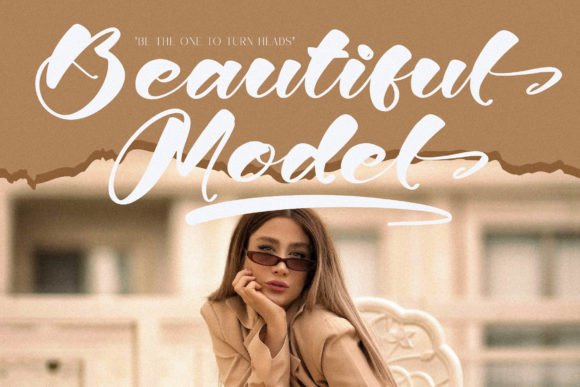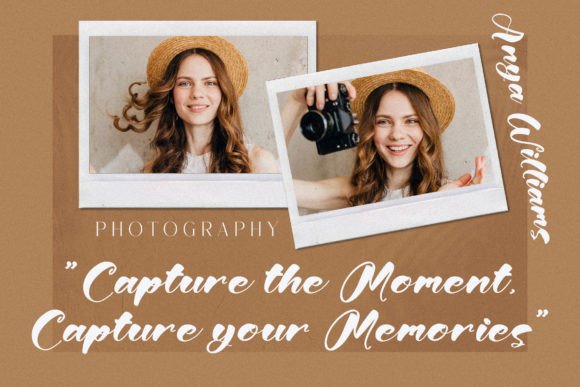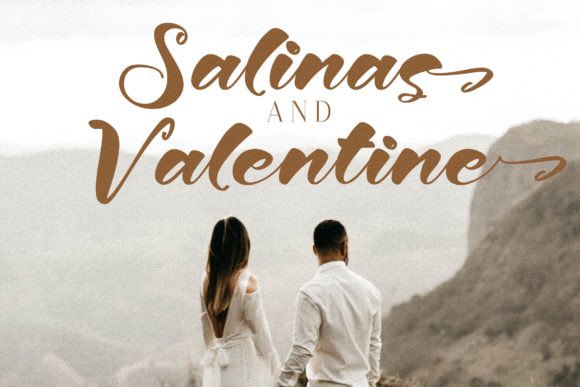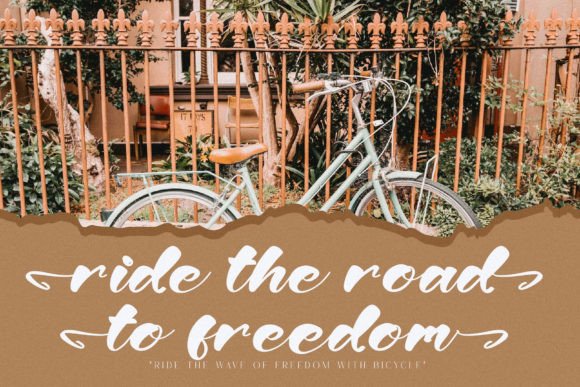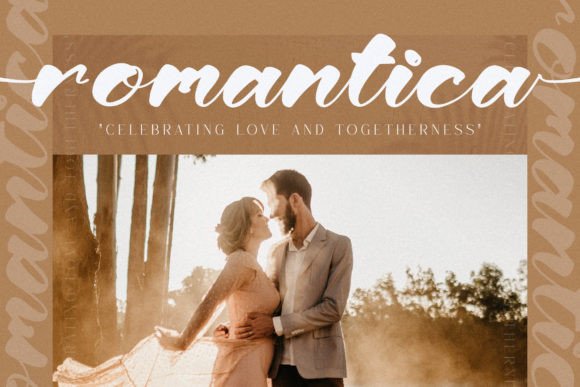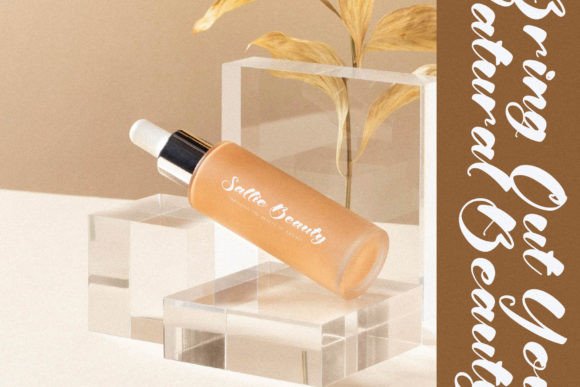
Discover the Perfect Blend of Elegance and Whimsy: Bright Nattelia Font
Have you ever stared at a blank page, waiting for inspiration to strike? That’s exactly what happened to me the day I stumbled upon the enchanting Bright Nattelia Font. Its elegant, handwritten script seemed to whisper ‘create something beautiful’ in my ear. And, boy, did it deliver! With its versatility and charm, this font has become my go-to companion for any project that requires a touch of sophistication and whimsy.
Whether you’re designing a logo, branding project, or a simple greeting card, Bright Nattelia Font is the perfect tool to elevate your creative vision. Its unique blend of elegance and playfulness makes it a valuable asset for designers who crave something truly special. With its endless possibilities, Bright Nattelia Font is sure to become your new favorite companion in the world of design.
Bright Nattelia Font Key Features
- Font Family: Bright Nattelia
- Font Size: 1,004 glyphs
- Unique Characteristics: This font features a unique blend of modern and elegant design elements, with a high level of legibility and readability, making it suitable for various design applications, including digital and print media.
Bright Nattelia Font Review
I recently had the chance to work with the Bright Nattelia font, and I must say, it’s a delightful addition to any design project. ✨ The font’s modern and elegant feel makes it perfect for creating a sophisticated and eye-catching visual identity. The clean lines and precise shapes give it a sleek, high-end look that’s sure to impress.
- ✨ Unique and modern design
- ✨ Perfect for creating a sophisticated visual identity
- ✨ Suitable for a wide range of applications, from branding to editorial design
However, as with any font, there are some limitations to consider. ⚠️ The Bright Nattelia font may not be the best choice for projects that require a lot of text, as it can become difficult to read at smaller font sizes. Additionally, the font’s modern design may not be suitable for more traditional or conservative audiences.
Overall, I think the Bright Nattelia font is a great addition to any designer’s toolkit. While it may have some limitations, its unique design and versatility make it a valuable resource for creating stunning visual identities. With the right use case, this font is sure to shine and leave a lasting impression.
Tips for Getting the Most Out of Bright Nattelia
Experiment with different font sizes, colors, and styles to create a unique visual identity.
Use Bright Nattelia for headings and titles to add a touch of elegance and sophistication.
Combine Bright Nattelia with other fonts to create a visually appealing typography.
Bright Nattelia is ideal for:
Creating eye-catching headings and titles
Designing elegant business cards and invitations
Adding a touch of sophistication to digital presentations and documents